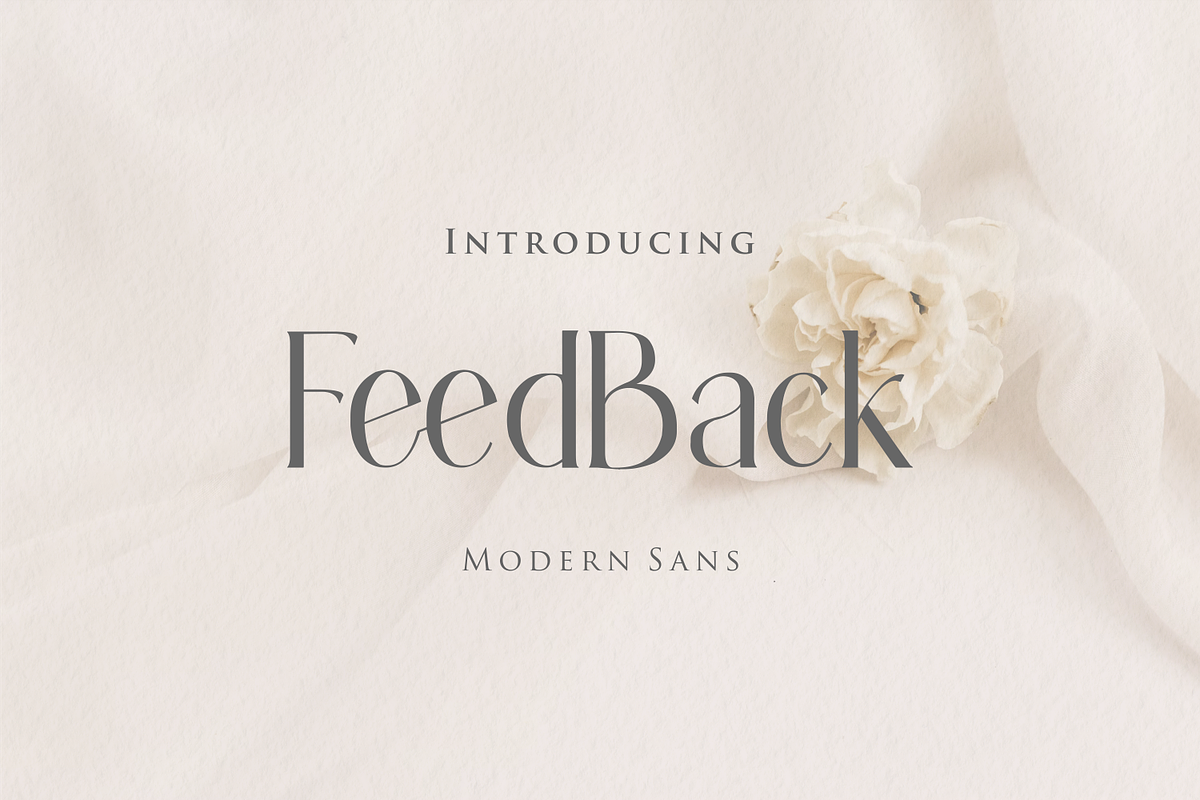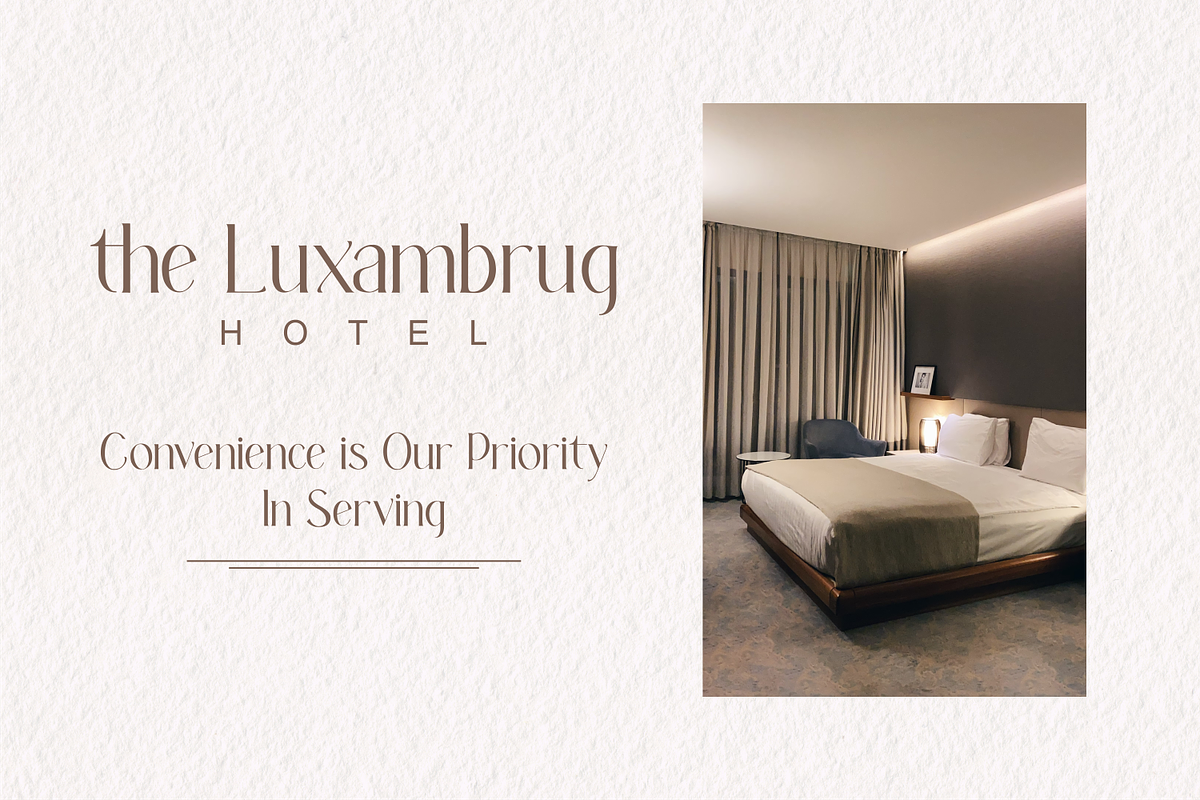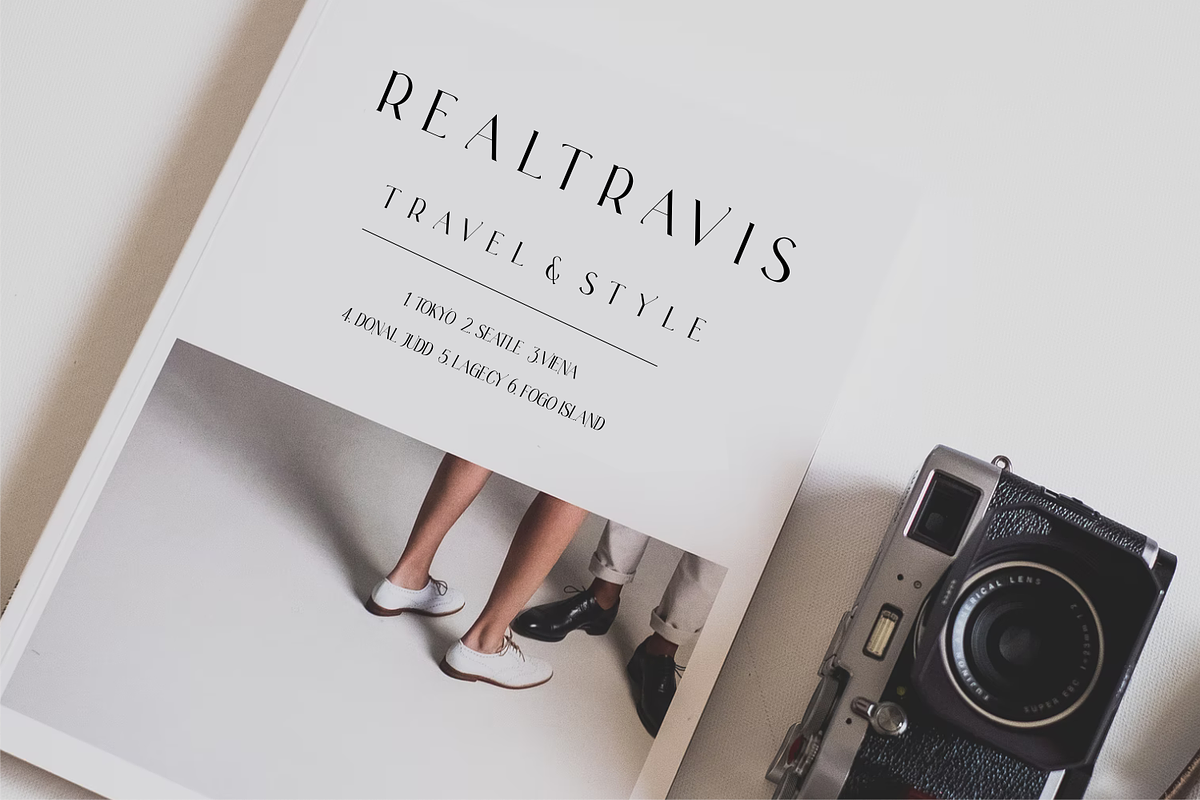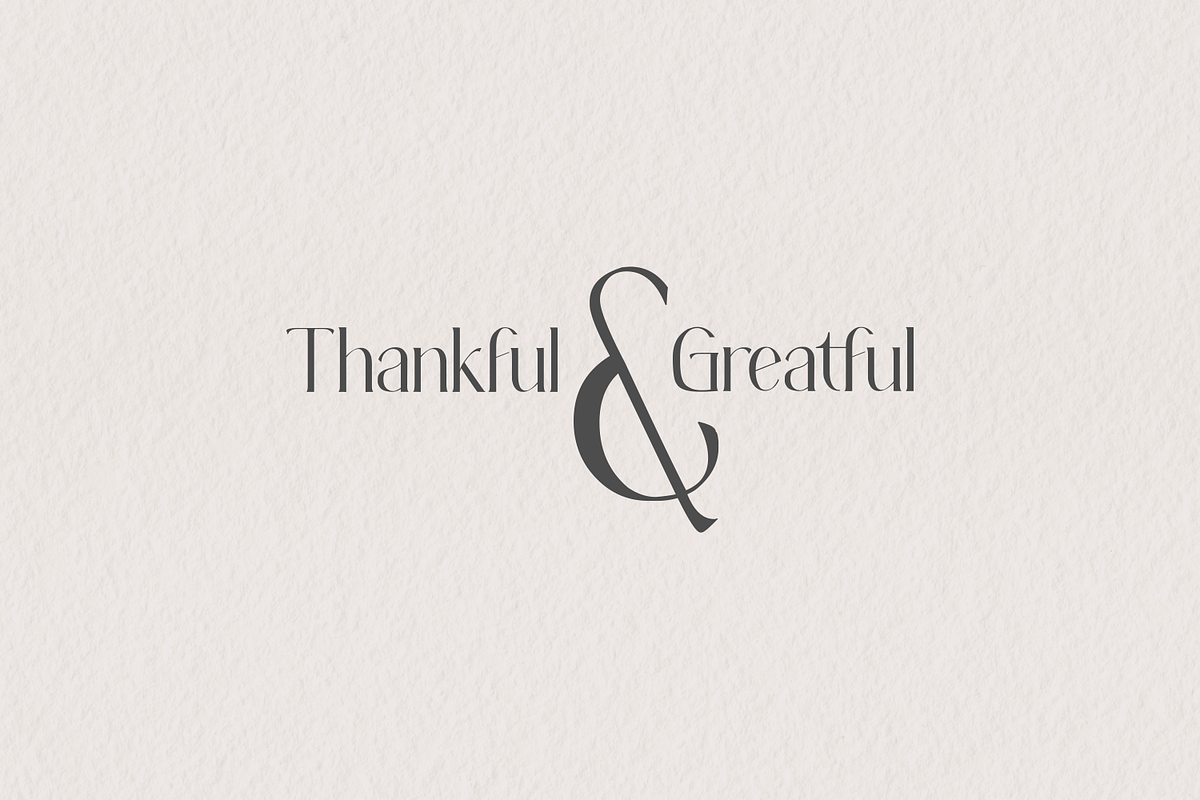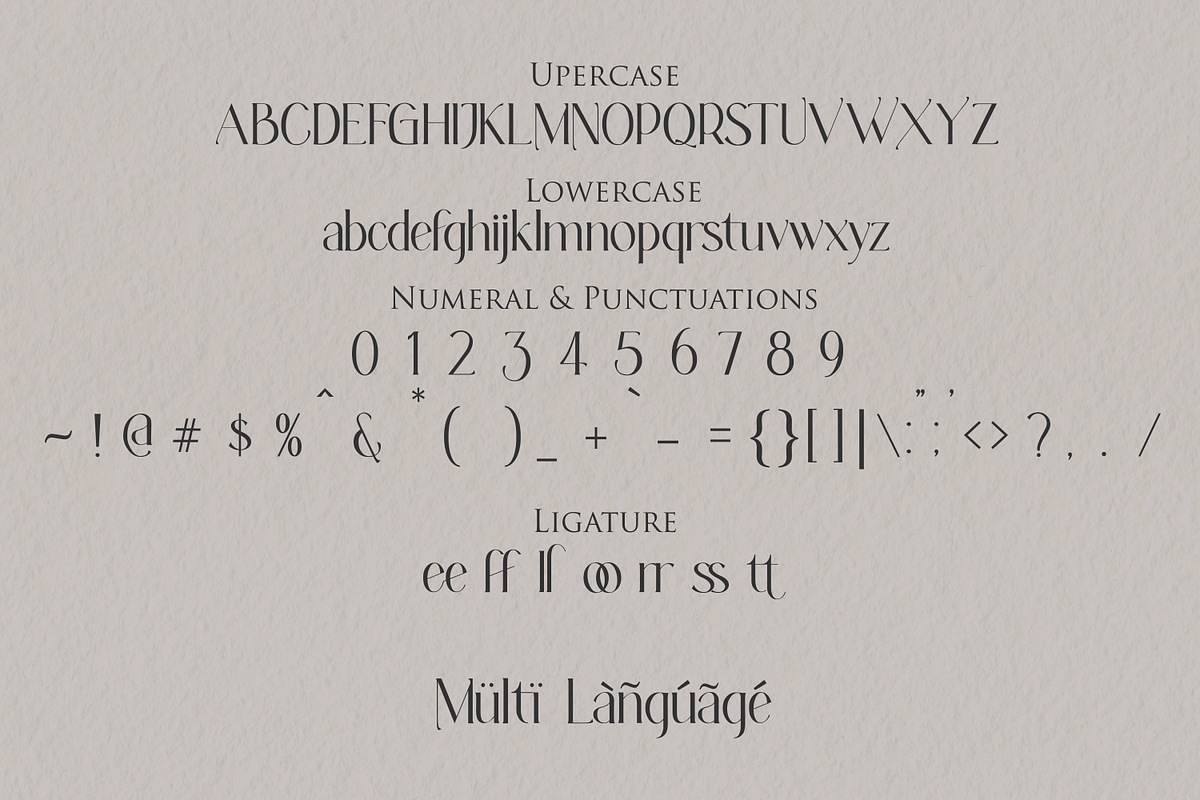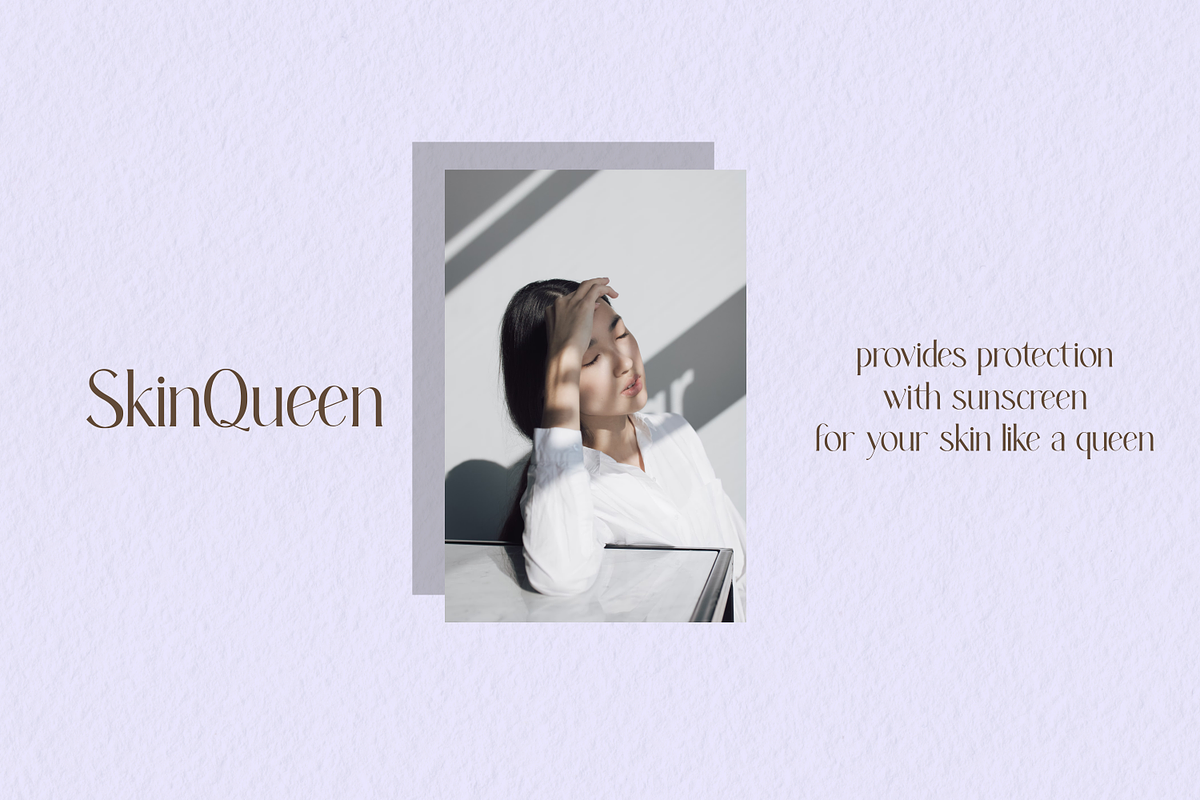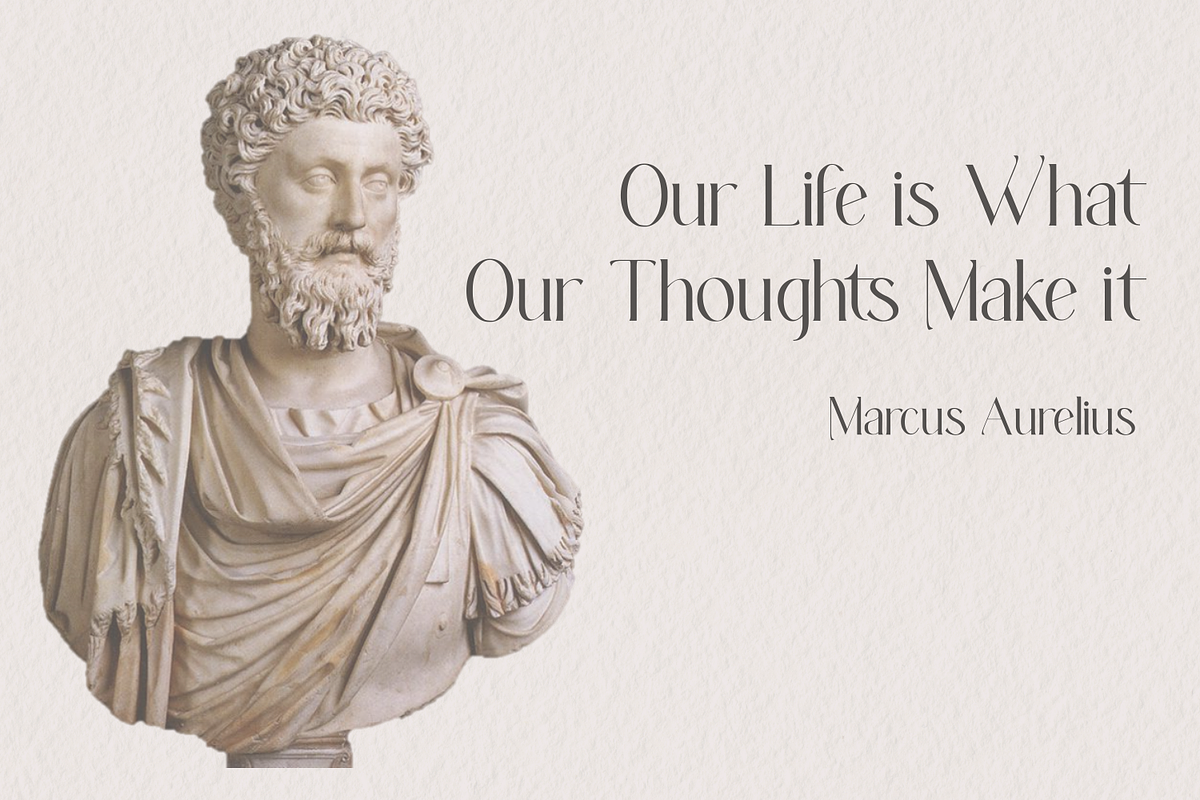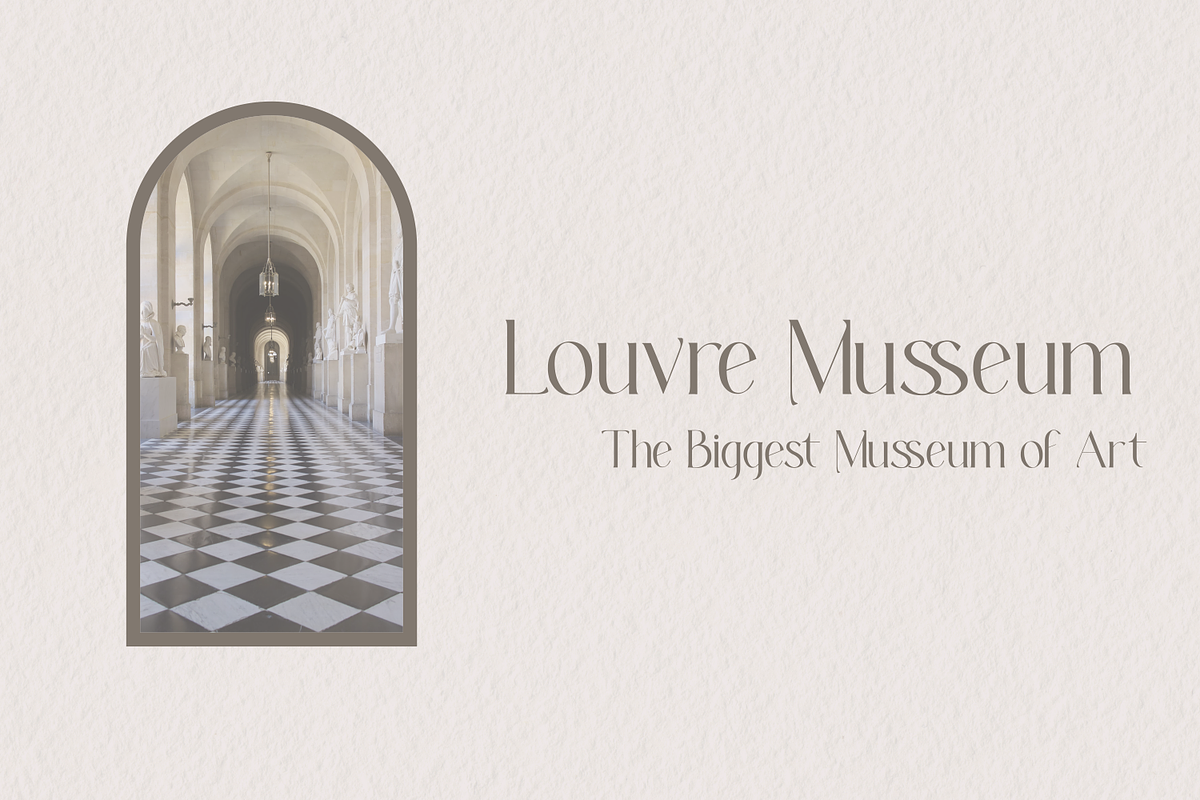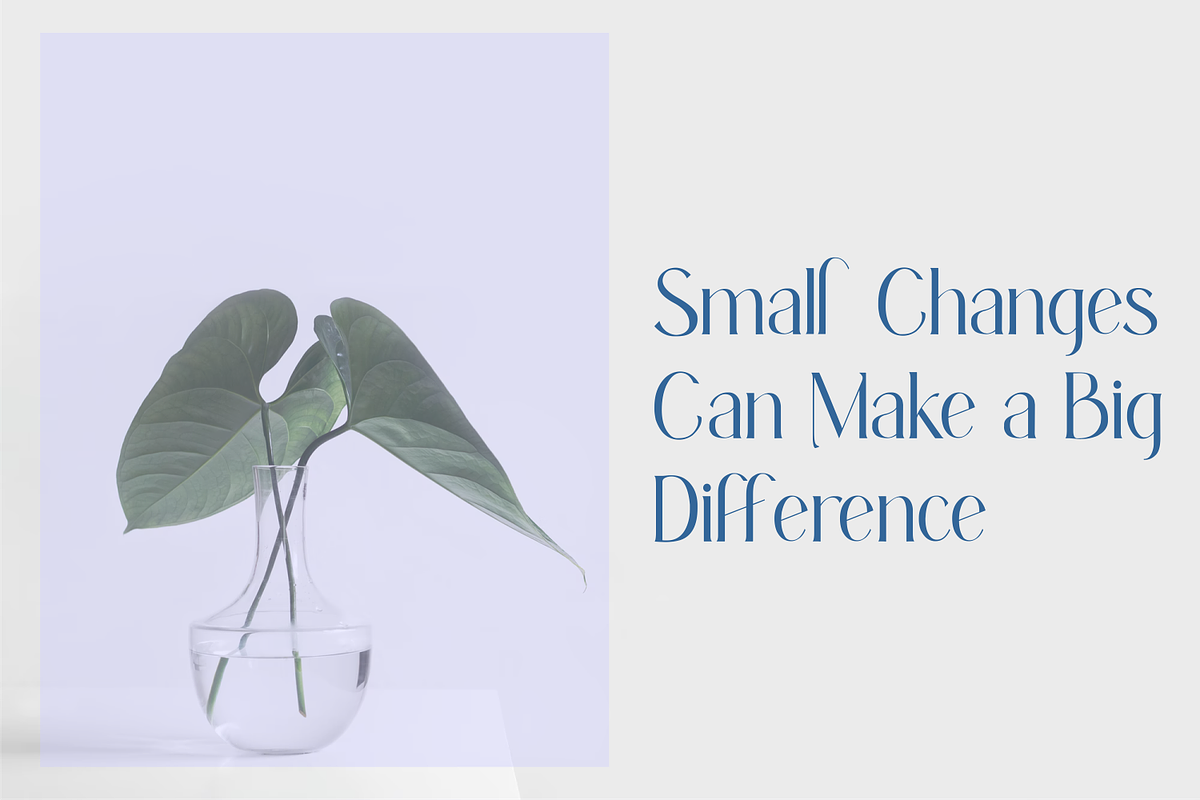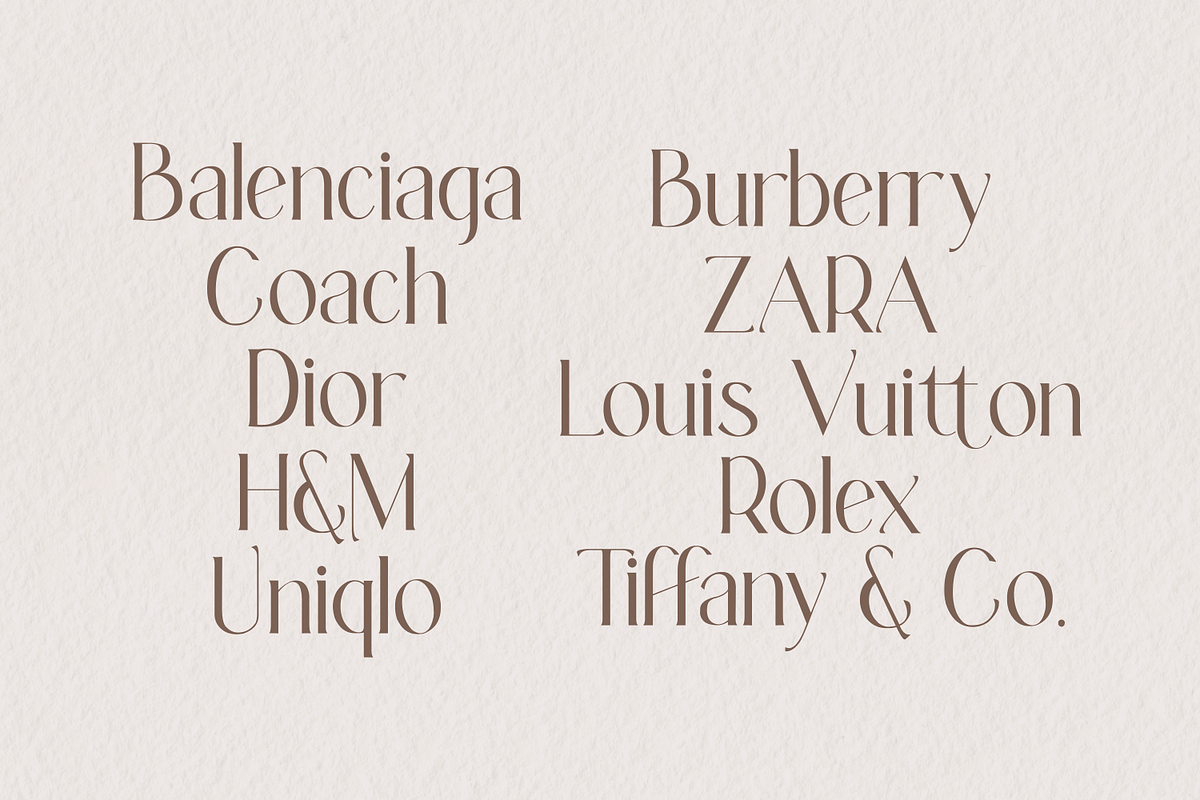
FeedBack Modern Sans
FeedBack a modern sans with simple, clean, and elegance, inspired by the cooperplate pen with tail. Specially designed for elegant-themed projects, perfectly suitable for creating simple, clean, lifestyle design such as logos, title, and magazine and more. The font features standard ligatures.